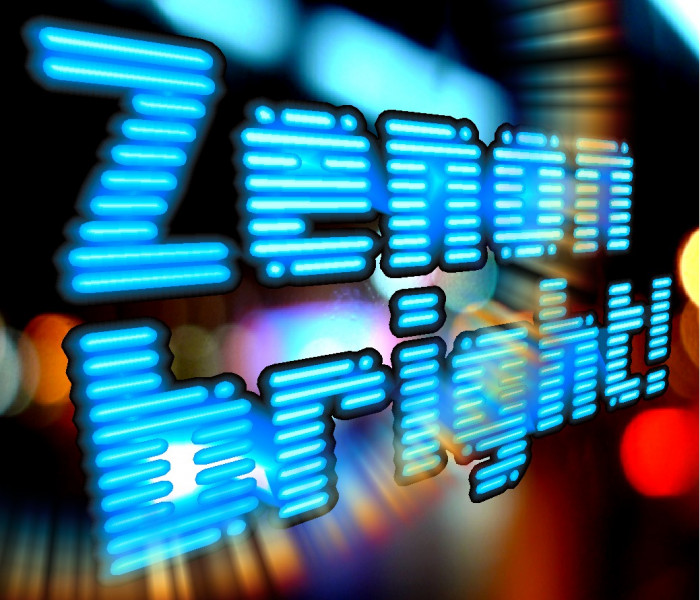
Stunning sample, elmo! Masterful design making good use of a larger grid than ‘necessary’ to allow for finer control of diagonals. And I really love the little ‘semi-serif’ details on the caps.
One suggestion: try shortening the arm of the ‘a’ just a wee bit. I think it will work just a bit better that way (you could line up its extent with the top line of shoulder of the bowl that just starts to “curve” inward).
Very cool with high usability. Love it.
There's not been one font by you that I haven't fallen in love with. Excellent work, on this one and all of your others.
The use of the dots to signify curves is genius.
Cool samples and great font...
Your work just goes from strength to strength. This is a great bit of design - shown to good effect by the excellent sample. 10/10
Nice and clean design. Stunning demo pic with glow and blur. 10/10
The first was minimum, you can see his powerfull work here:
I found an old sample with more resolution 😃.
Great font! Amazing style and the samples are really beautiful!